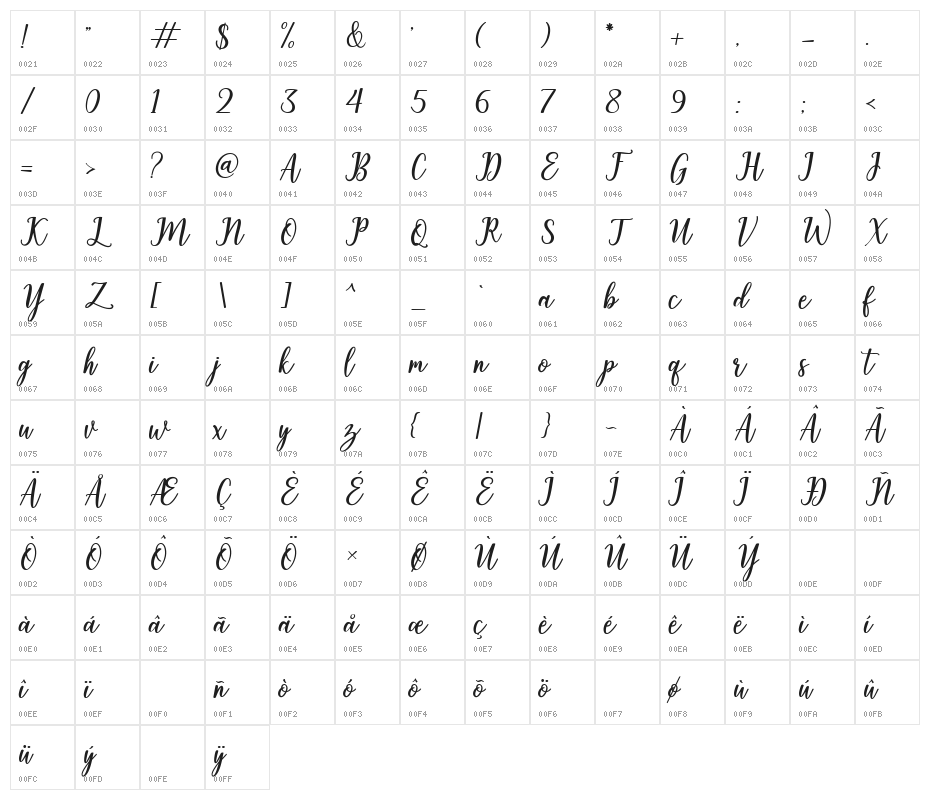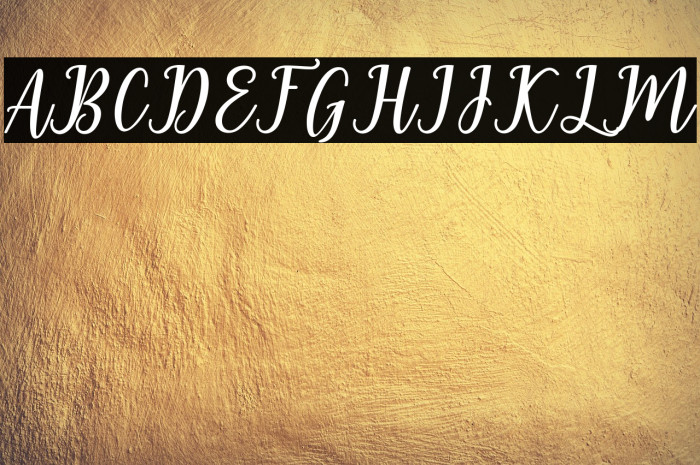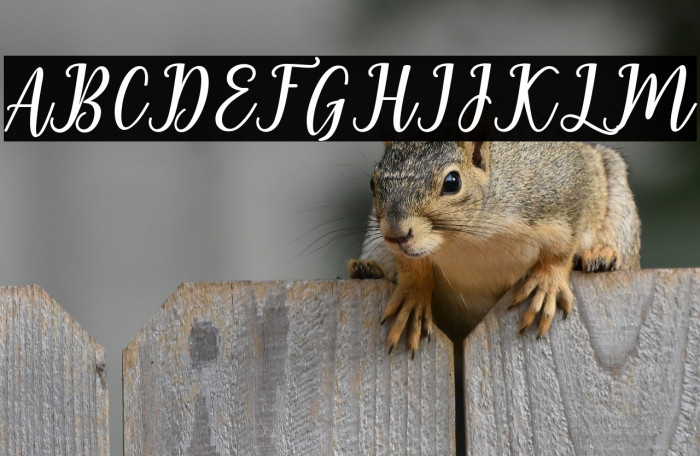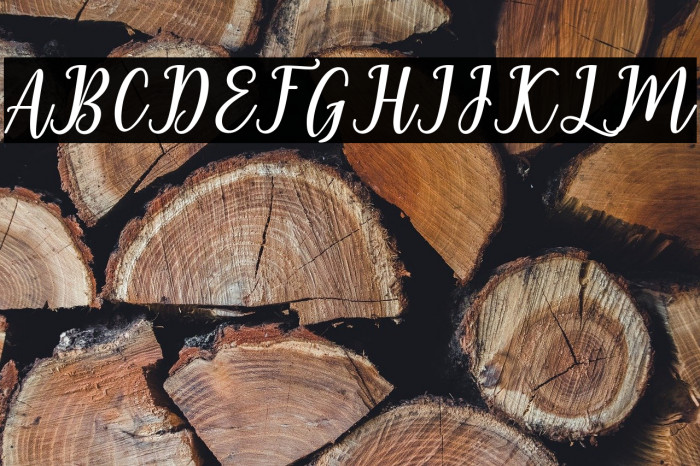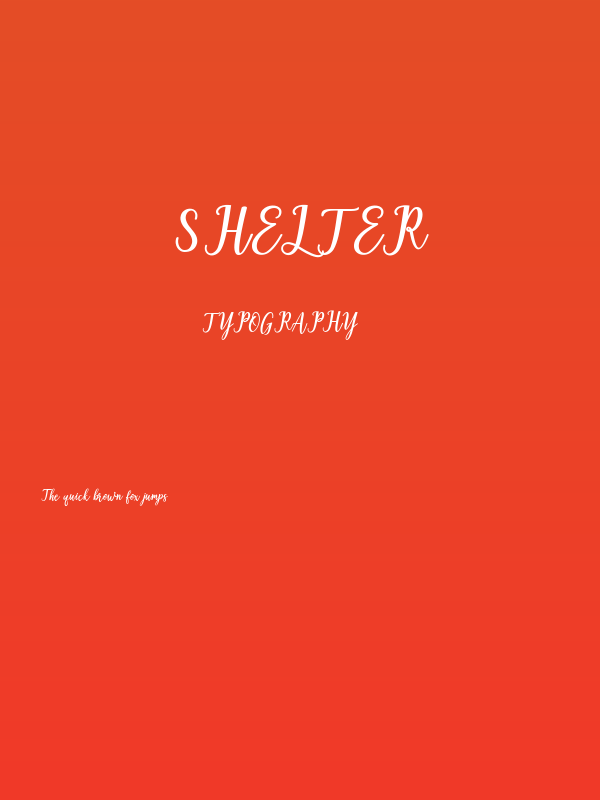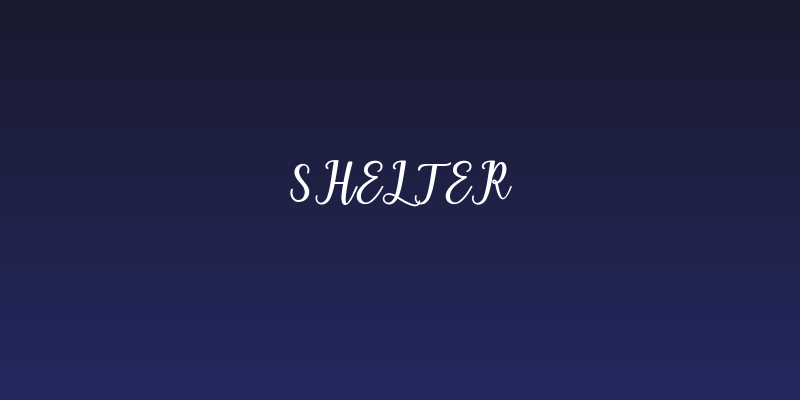
shelter Font
shelter Description
This font features a flowing, cursive style with elegant, sweeping strokes that give it a handwritten appearance. The uppercase letters are ornate and slightly slanted, while the lowercase letters maintain a consistent fluidity, enhancing the script's charm. Numbers and special characters are designed with the same attention to detail, ensuring a cohesive look across all elements. The overall aesthetic is sophisticated and artistic, making it suitable for projects that require a personal touch.
| Overall Style | Elegant, Artistic |